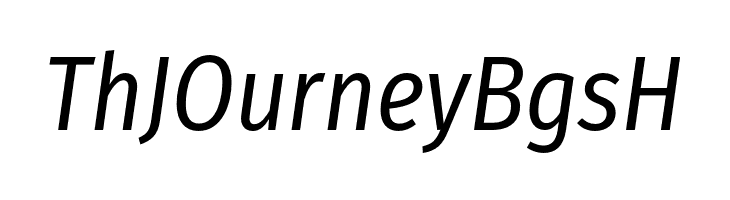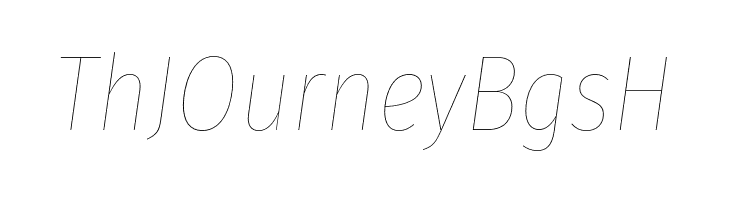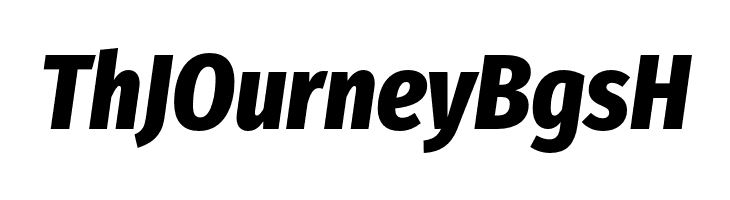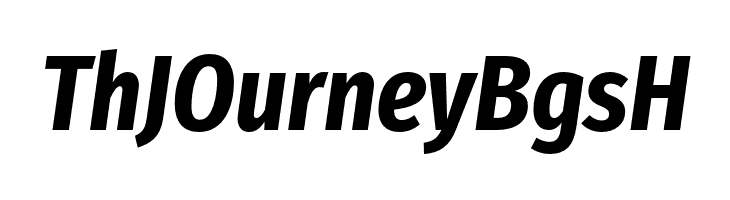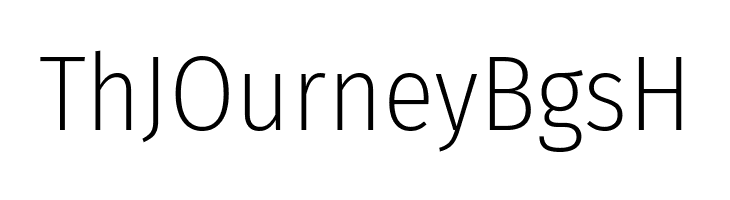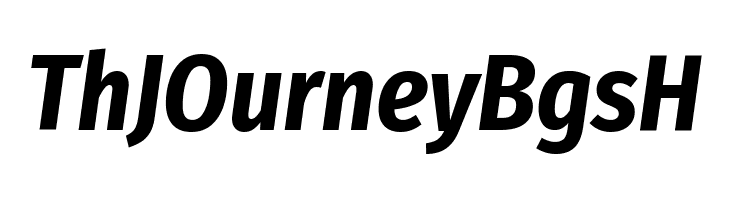
A bold, condensed sans-serif font with a modern and clean design.
A modern, bold, condensed sans-serif font with an italic slant.
A modern, bold, condensed sans-serif font with italic styling.
A modern, condensed sans-serif font with an elegant italic style.
A modern, condensed italic font with a sleek, minimalist design and low contrast.
A bold, condensed sans-serif font with a modern and robust style.
A condensed, extra bold italic typeface with a modern and dynamic style.
A bold, italic, and condensed font with a modern and dynamic style.
A modern, condensed sans-serif font with an extra light weight, perfect for minimalist designs.
A sleek, modern, and condensed extra light italic font with tight spacing.